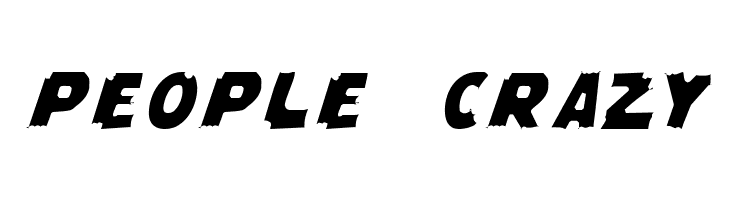
Burgerbar FREE PERSONAL USED Font
- Font: Burgerbar FREE PERSONAL USED
( Fonts by Iconian Fonts - Daniel Zadorozny )
A bold, distressed font with a rugged, vintage style.